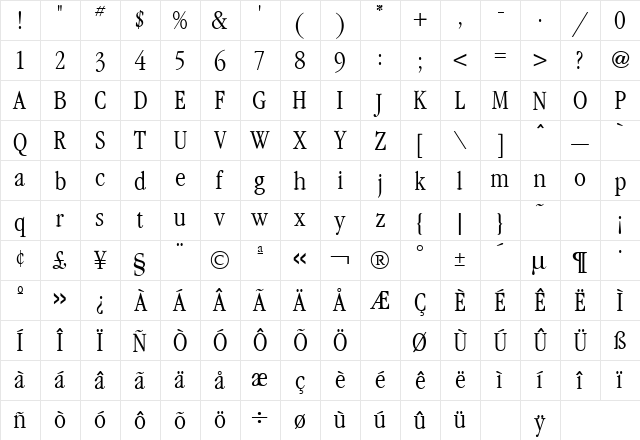
Garamond Condensed Light Regular Font Preview
Design Context for Garamond Condensed Light Typeface
Garamond Condensed Light offers clean, dependable letterforms without strong stylistic allegiance, making it a practical choice for designers who need flexibility. The delicate stroke weight brings airiness and refinement to layouts. Its narrow stance lets it pack a punch even in space-constrained designs.